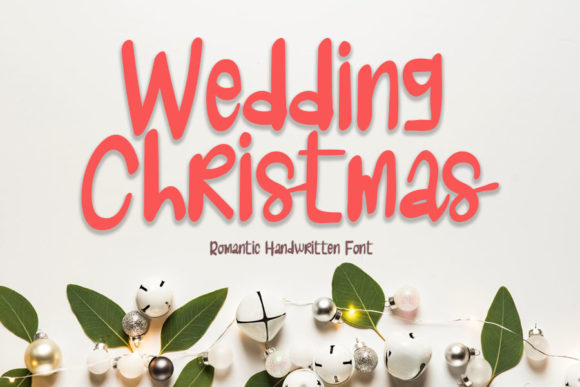
Dive into the enchanting world of Wedding Christmas Font, a captivating script font family that exudes elegance and charm. This exquisite creation by shiddiq.art is the epitome of timeless beauty, boasting a natural and unique style that effortlessly elevates any design project.
With its delicate strokes and whimsical curves, Wedding Christmas Font dances across the page, captivating the beholder with its inherent grace and personality. Its enchanting charm lends itself perfectly to a myriad of design applications, from wedding invitations and greeting cards to posters, flyers, and social media posts.
As a versatile font family, Wedding Christmas Font effortlessly adapts to diverse design aesthetics, ranging from classic and traditional to modern and contemporary. Its inherent versatility makes it an invaluable asset for designers and creatives seeking to infuse their projects with a touch of timeless elegance.
Unleash your creativity and let Wedding Christmas Font weave its magic into your design endeavors. Its natural flow and effortless charm will add a touch of sophistication and visual appeal to any project, leaving a lasting impression on your audience.
Join countless designers and creatives who have embraced the allure of Wedding Christmas Font, transforming their projects into captivating works of art. Let this font family become your secret weapon, unlocking the potential for design excellence.